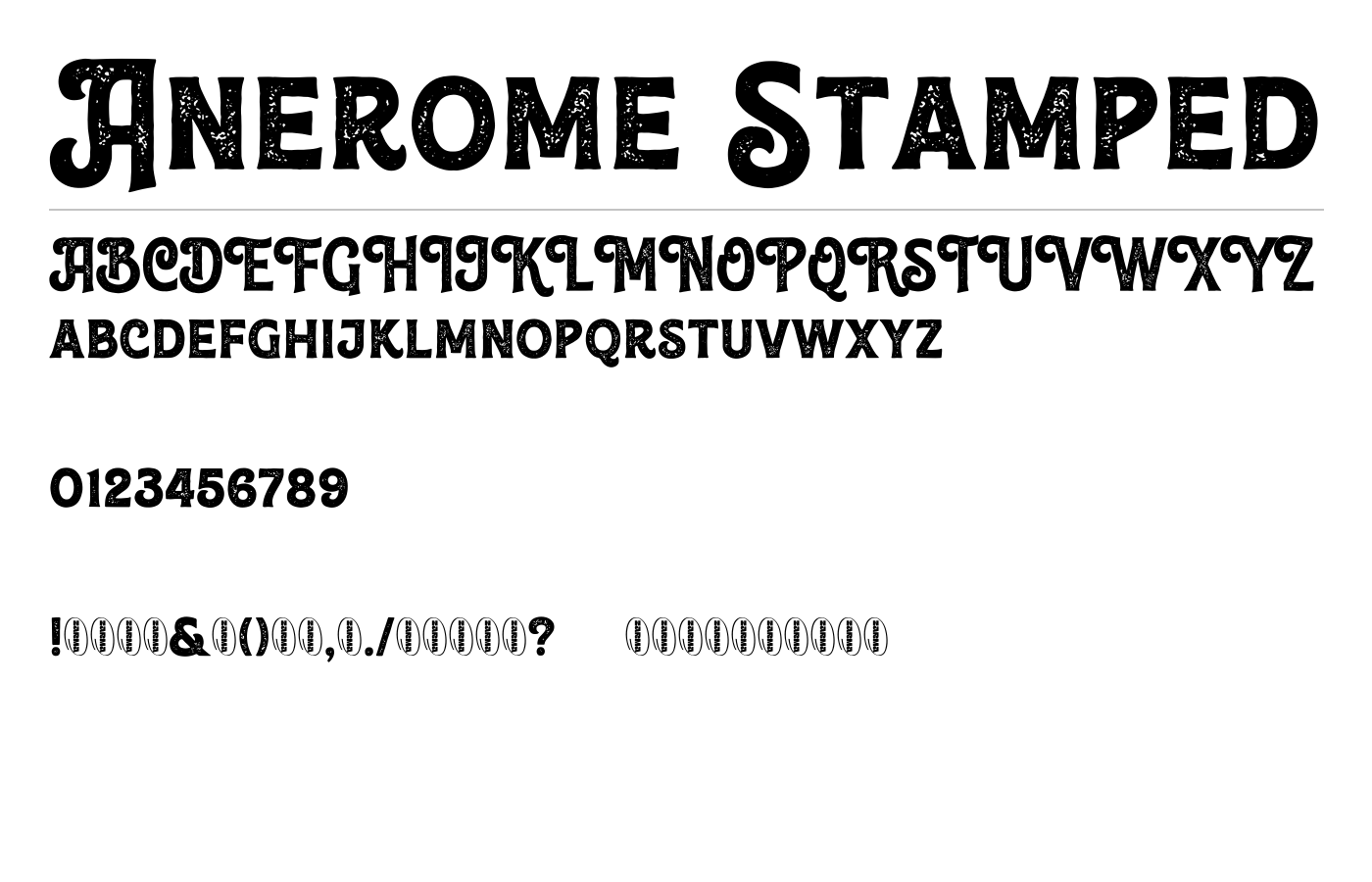
Anerome is a bold, decorative serif font with a vintage stamped texture that adds a rustic and handcrafted feel. Its playful, slightly condensed letterforms feature unique curled serifs and distressed details, making it ideal for eye-catching headlines, logos, and packaging with a nostalgic or artisanal vibe. This font works especially well where a strong, textured impact is needed to convey character and charm.
Anerome Font
About Anerome Font
| Font family | Anerome Font |
| Designer | Azzam Ridhamalik |